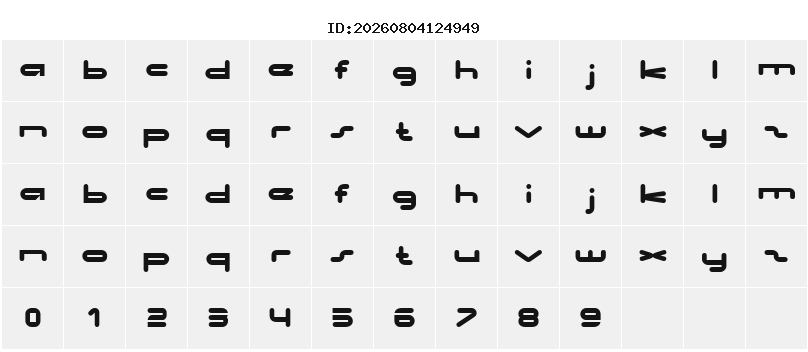
• Font Name: No Clocks
• Font ID: RayLarabie: No Clocks: 1997
• Full Font Name: No Clocks
• Designer: Ray Larabie
• Manufacturer: Ray Larabie
About No Clocks.ttf
No Clocks.ttf is a modern, elegant sans-serif font designed for ultimate readability and visual harmony. Perfect for branding, headlines, web design, and print materials.